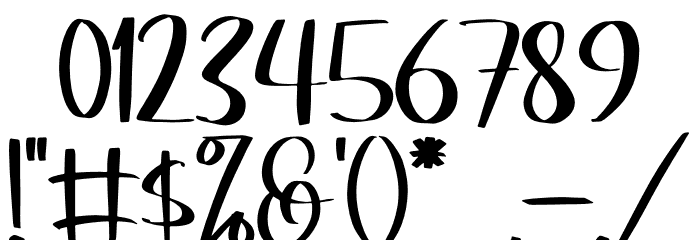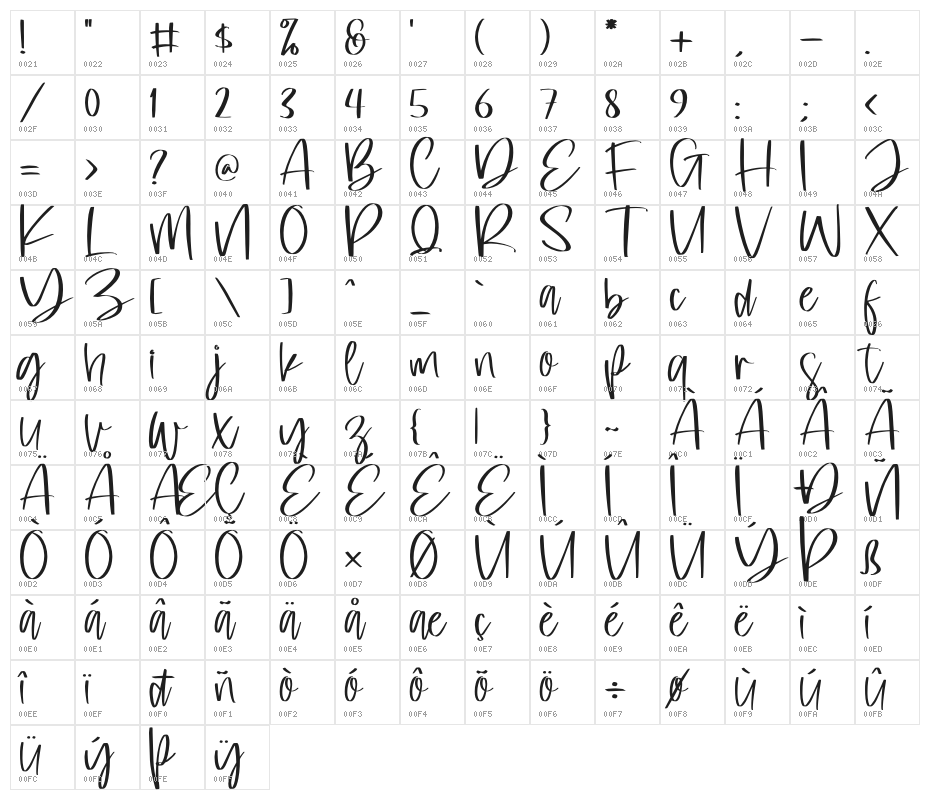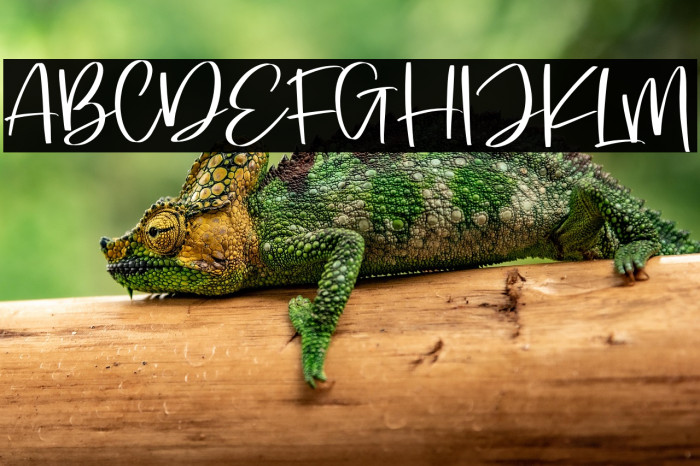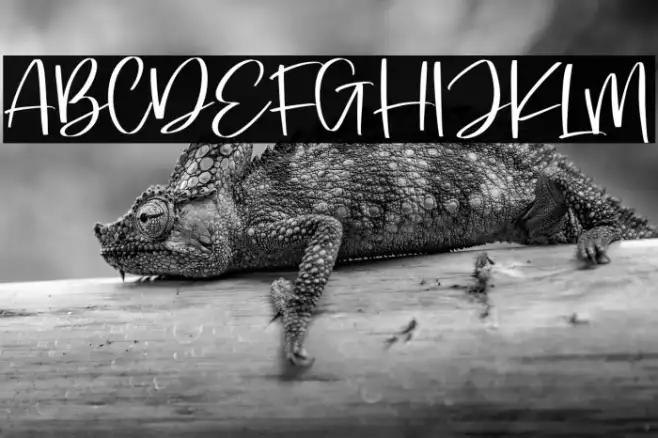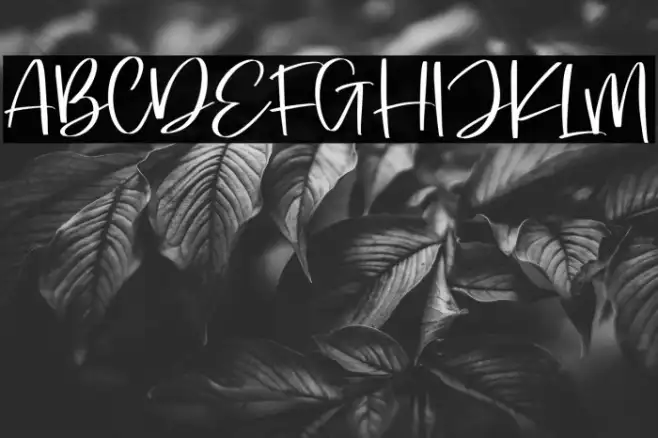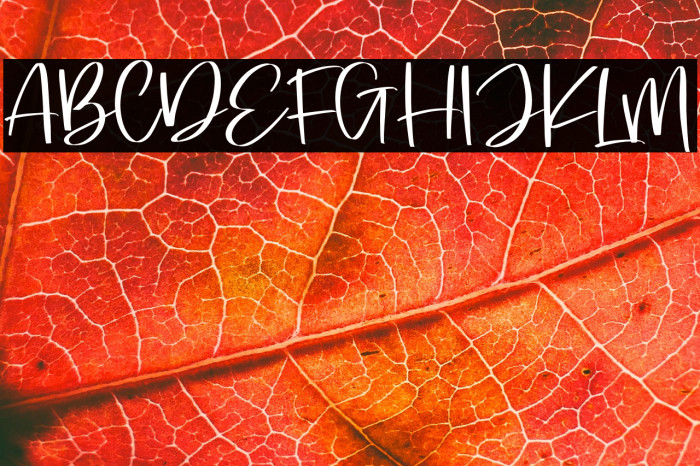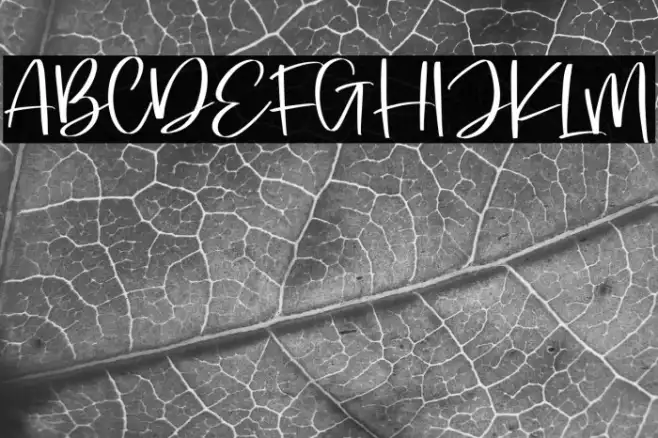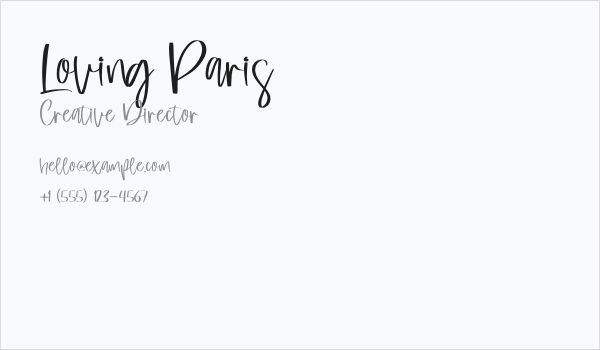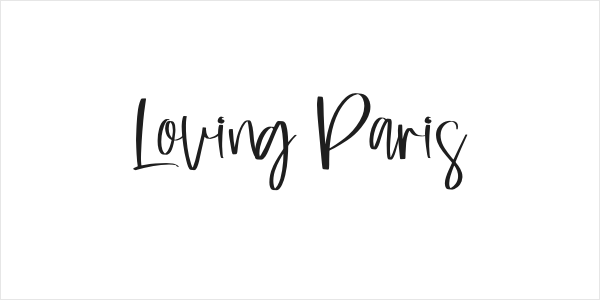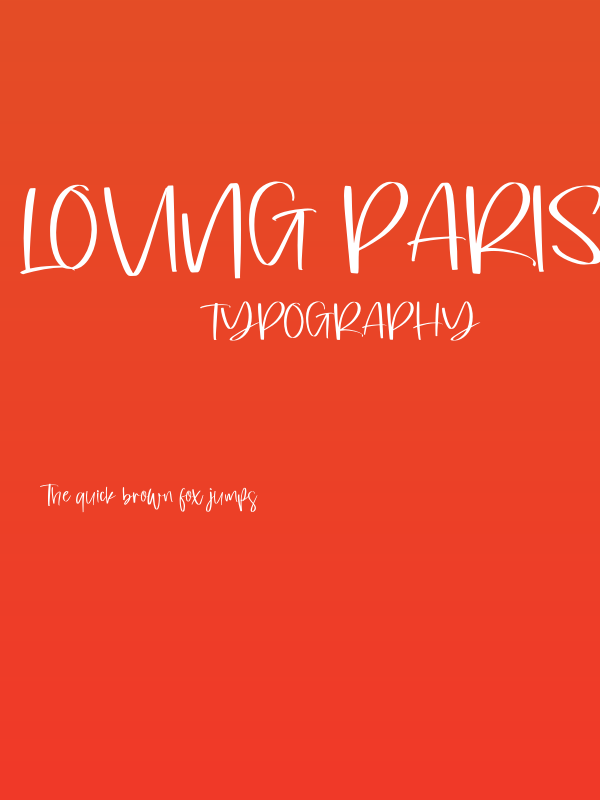
Loving Paris Font
Loving Paris Description
This font features a lively and expressive handwritten style, characterized by its fluid and dynamic strokes. The uppercase letters are bold and slightly slanted, giving a sense of movement and energy. The lowercase letters maintain a consistent flow, with some letters extending below the baseline, adding to its playful nature. Numbers are equally expressive, with varying stroke widths that enhance the overall whimsical feel. Special characters are creatively integrated, maintaining the font's artistic flair. This font is perfect for projects that require a personal and artistic touch.
| Proposed Projects | Ideal for greeting cards, invitations, personal branding, and artistic posters. |